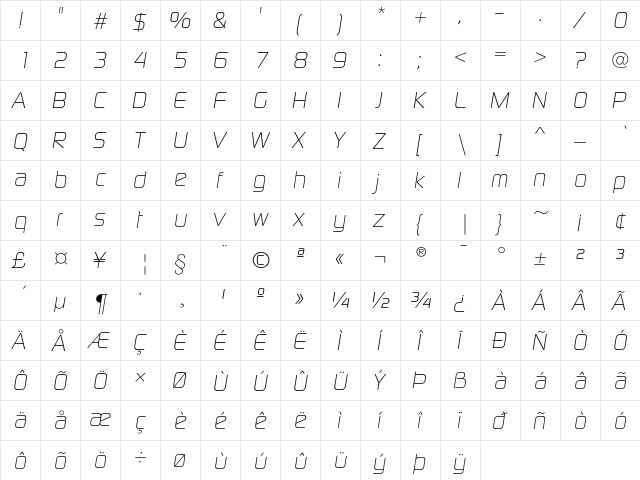
DigitalEF Light Italic Font Preview
Design Context for DigitalEF Typeface
DigitalEF has a distinctly futuristic character, with geometric precision and clean angles that feel at home in technology, gaming, and sci-fi contexts. The dynamic lean of this cut emphasises speed and emphasis in any layout. The delicate stroke weight brings airiness and refinement to layouts.
Pro Tip: Try DigitalEF with generous letter-spacing in UI labels and navigation — the geometric forms benefit from room to breathe.